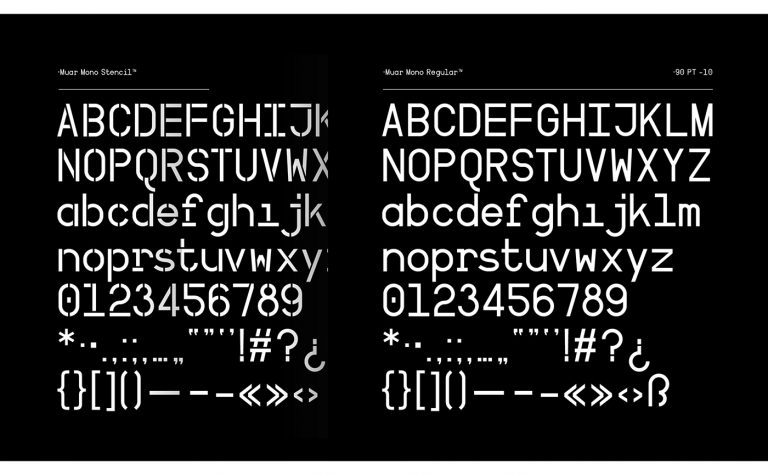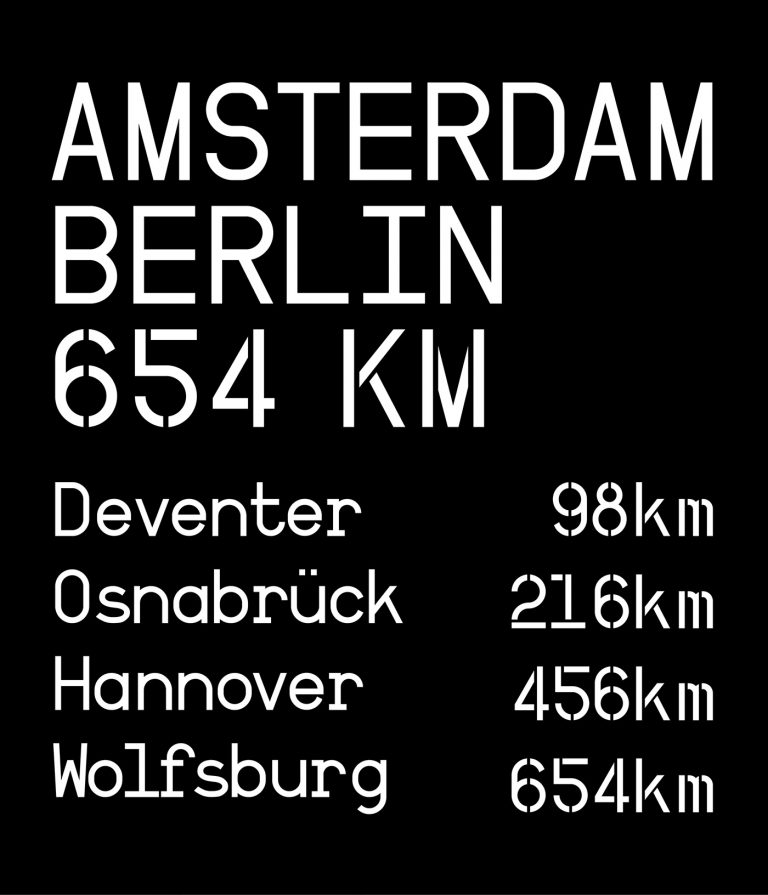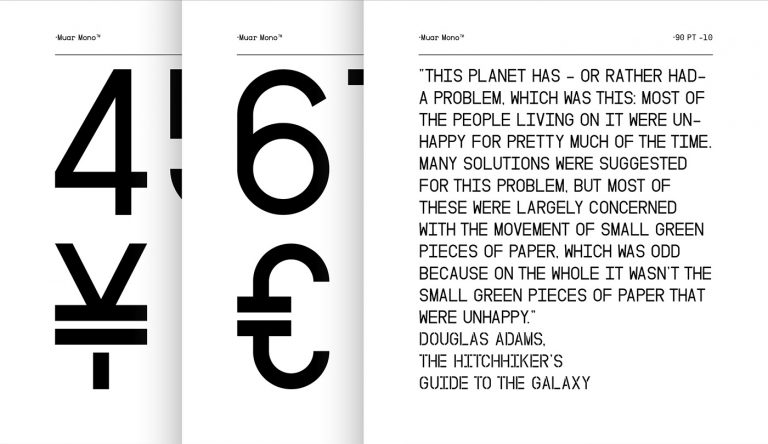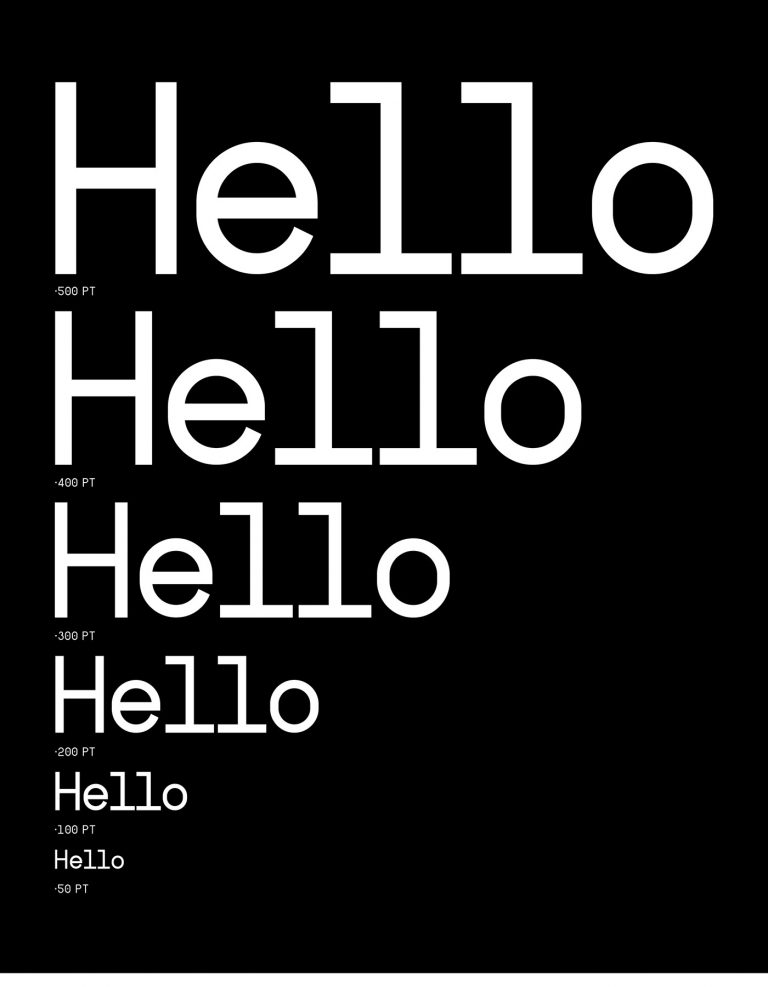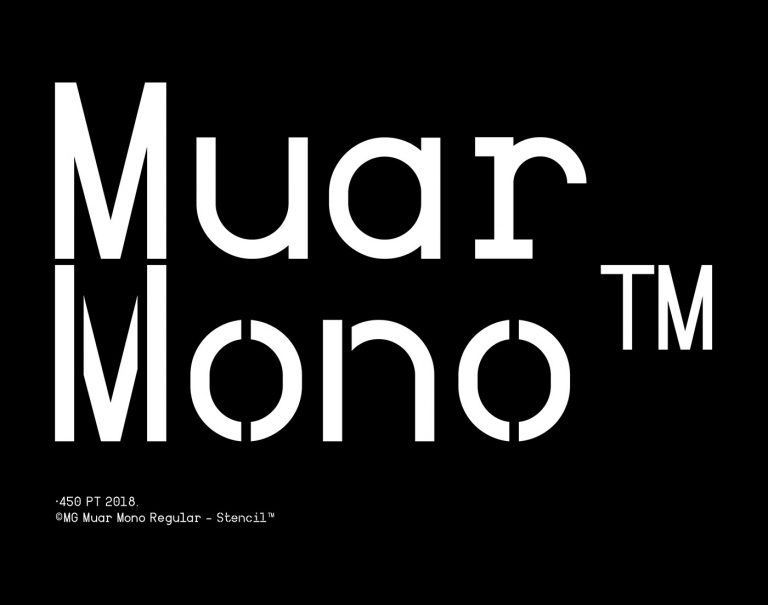
Muar Mono™ Typeface
The following is a geometric sans serif typeface. Introducing Muar Mono. It is designed and shared by Muhittin Güneş. Muar Mono is a contemporary typeface.The typeface can span from a refined vintage feel to an industrial futuristic vibe. Muar Mono very suitable to use for headlines, sign, display, and logotype, or take it for a spin with short-form body copy.